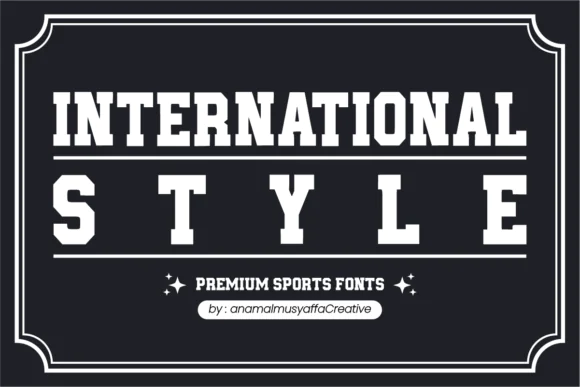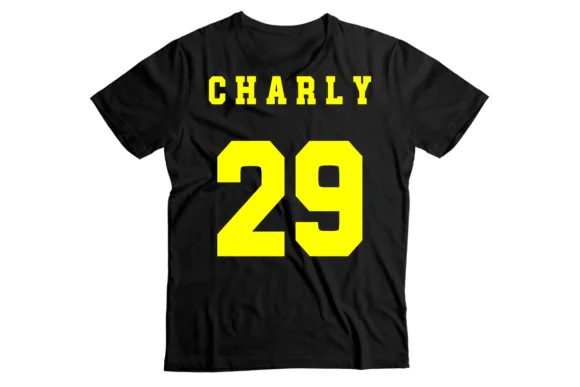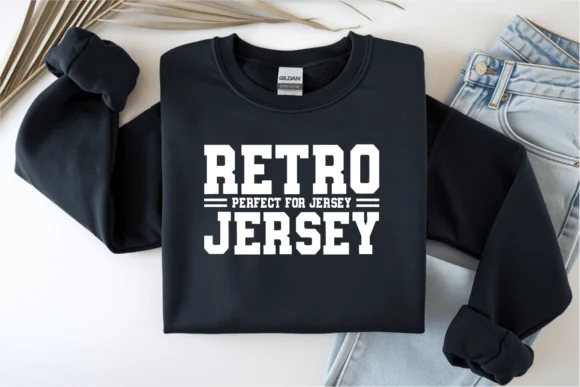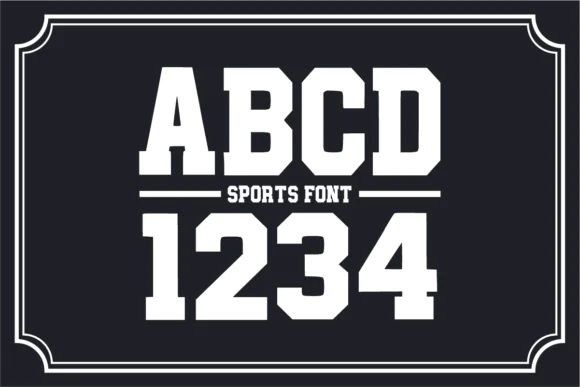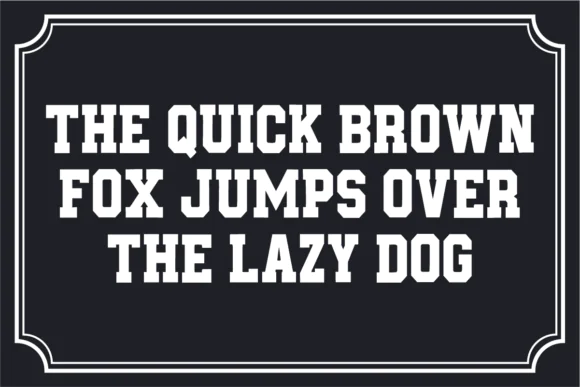
Create bold, sporty, and eye-catching designs with Football Jersey Font, a classic yet modern sports typeface designed with strong uppercase letters. Each character has a powerful and recognizable look, making this font perfect for athletic designs, team-inspired graphics, and high-impact creative projects.
Football Jersey Font is ideal for designers, crafters, apparel sellers, print-on-demand creators, sports brands, school teams, and merchandise makers who want a clean and confident sports-style font. Its bold uppercase structure works beautifully for football jerseys, team logos, t-shirts, hoodies, caps, sublimation designs, mugs, tote bags, posters, banners, comic titles, animations, stickers, and custom sports merchandise.
This font brings a strong athletic personality to any project. Whether you are creating a football team shirt, school spirit design, varsity-style merchandise, sports event poster, fan apparel, personalized player name design, or bold comic-style title, Football Jersey Font helps your text stand out clearly and professionally.
Its modern sports appearance makes it suitable for both digital and printable projects, giving your designs a strong, energetic, and memorable look.